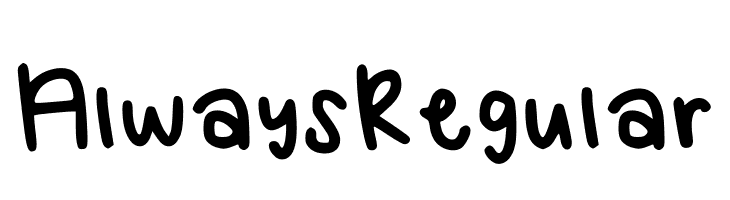
A bold, playful font with rounded, hand-drawn characters.
A playful, handwritten font with rounded edges and a casual style.
A playful, rounded font with a friendly, handwritten style.
A playful, hand-drawn font with rounded, bold characters.
A playful, handwritten font with rounded edges and a casual style.
A playful, hand-drawn font with rounded edges and a friendly style.
A playful, hand-drawn font with rounded, bold characters and a whimsical style.
A bold, handwritten font with rounded, playful characters.
A bold, handwritten-style font with dynamic strokes and playful character.
A bold, expressive handwritten font with dynamic strokes and a casual style.
A playful, hand-drawn font with a whimsical and charming style.
A bold, handwritten font with a dynamic and energetic style.
A lively, expressive handwritten font with fluid strokes and playful aesthetics.
A lively, expressive handwritten font with dynamic strokes and playful flair.